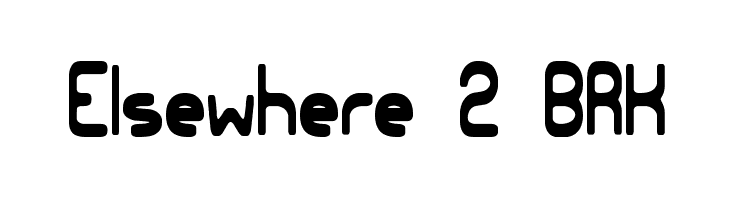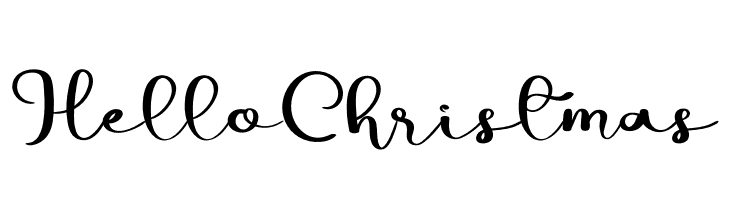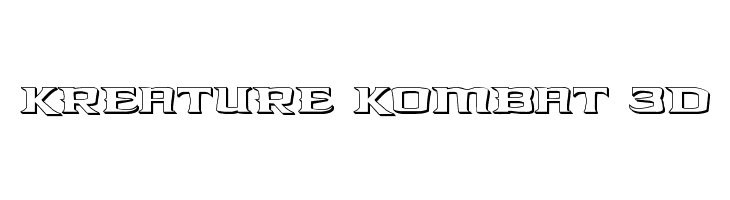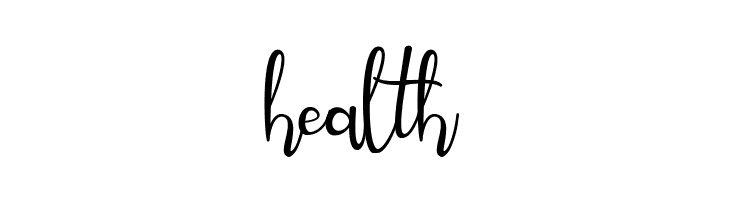
An elegant and flowing script font with decorative flourishes.
A bold, rounded dingbat font with diverse pictograms and playful shapes.
A playful, italicized font with dotted strokes and decorative elements.
A sophisticated and elegant script font with flowing, handwritten style.
A bold, gothic-inspired font with sharp, angular edges and dramatic strokes.
A playful and bold font with whimsical curves and a strong presence.
A playful, handwritten font with rounded, whimsical characters.
A bold, expressive handwritten font with fluid strokes and playful curves.
A bold, rounded font with a playful and approachable style.